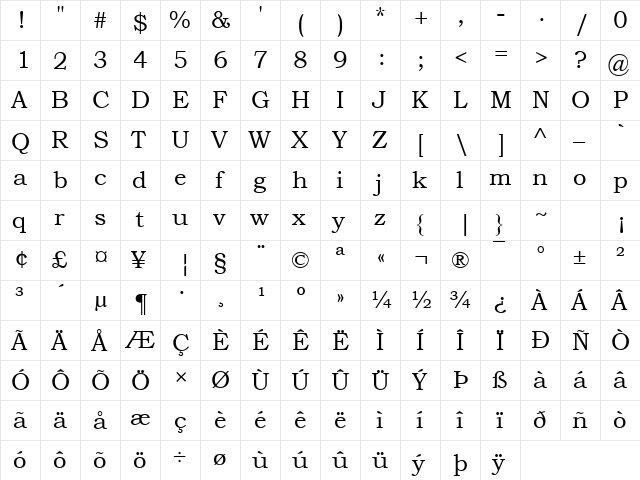
GE Booker Regular
Design Context for GE Booker Typeface
GE Booker offers clean, dependable letterforms without strong stylistic allegiance, making it a practical choice for designers who need flexibility.
Pro Tip: Use GE Booker in both headline and body roles to test its range before committing to a single application.